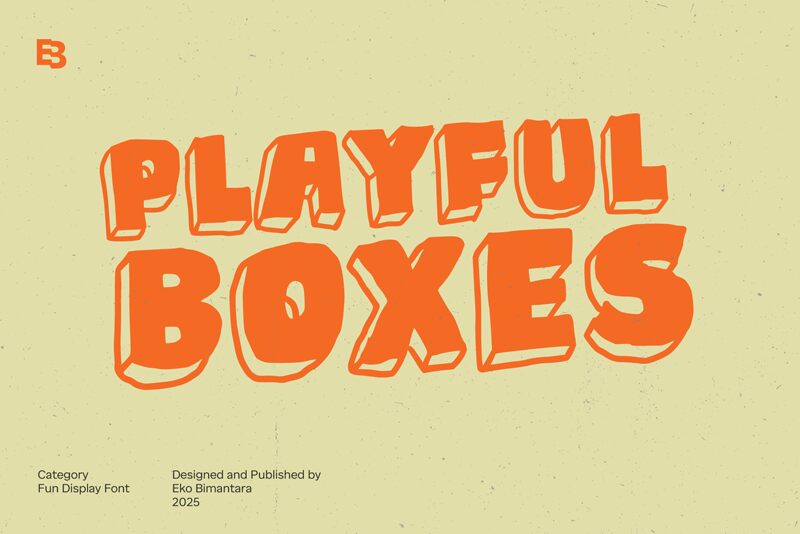
Playful Boxes
Playful Boxes font by Eko Bimantara combines a fun, exaggerated proportions, bold cartoonish appearance with slightly large, thick letters to deliver a unique visual style. The display typeface carries that whimsical mood which everyone associates with animations and cartoons which is visible in its several features such as shadowed effect and outlined letter style.
A free resource for download, this font unlocks tons of use possibilities for creative designers. It would fit ideally titles or body text within animation posters, cartoons advertising visuals and youth magazines & newspapers respectively. Other possible usage directions include children’s books cover art, marking pens packaging design, YouTube channel branding logo or banner.